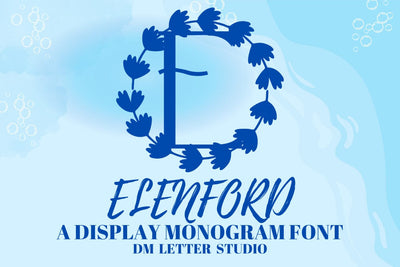
Elenford Monogram Font
Meet Elenford, the Monogram Font
Elenford Monogram Font turns simple initials into refined emblems with a calm, premium feel. Strokes are smooth and balanced. Counters stay open, so tiny tags, foil seals, and thumbnails read clearly. Use it for wedding suites, boutique logos, keepsake gifts, and elegant packaging. Moreover, Elenford pairs beautifully with modern serifs and clean humanist sans fonts, so your layouts look polished with very little effort.
Where the monogram font shines
Set single, double, or triple initials for logos, seals, menus, and place cards. Then frame them with laurel rings, oval borders, or fine-line rules to echo the graceful structure. Since proportions favor symmetry, you can compose neat, centered marks in minutes. As a result, your thumbnails stand out across marketplaces and your listings stay consistent from invites to signage.
Design tips for Elenford Monogram
Keep initials large and let white space breathe. Pair the headline monogram with a quiet serif for body text or a soft sans for captions. Therefore, you can ddd micro shadows, a thin inner stroke, or a delicate frame for depth. Because the forms feel airy, textured paper and metallic accents raise perceived value. However, keep wording short so the monogram remains the hero.
Select stylistic alternates for key letters
Curves tuned for foil, letterpress, engraving, laser, and clean vinyl cutting